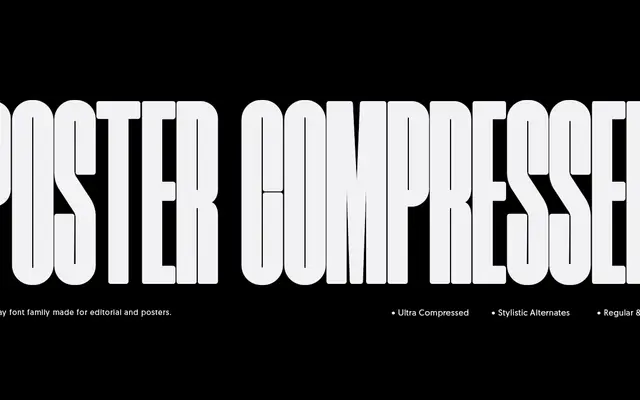
Poster Compressed
A single-weight compressed display face from Arkitype, built for large headlines and poster work with extremely tight spacing.
Designed with a super-compressed character set and tight kerning throughout, it suits editorial layouts and typographic posters where vertical scale matters. The family offers Regular and Italic cuts, with OpenType stylistic alternates for R and r. Latin coverage includes Extended-A characters for broad European language support.
A super-condensed display face built explicitly for large-scale editorial and poster headlines, with tight kerning and a single weight optimised for impact at scale.